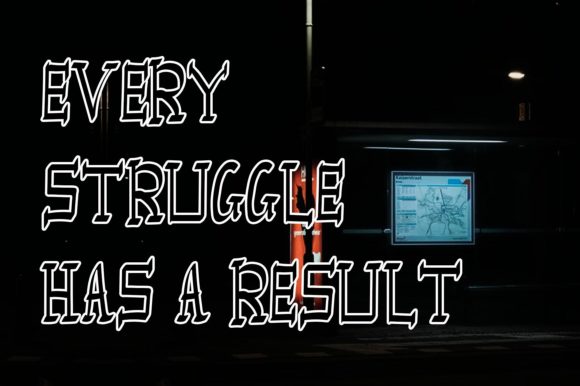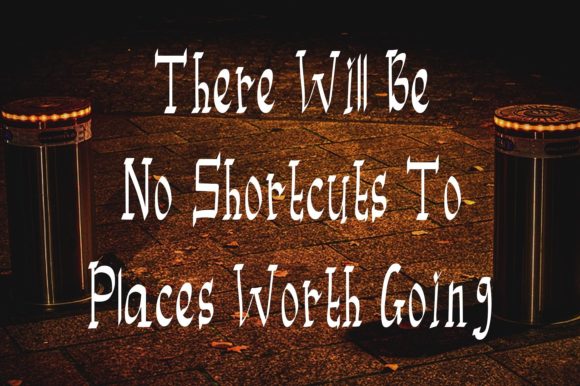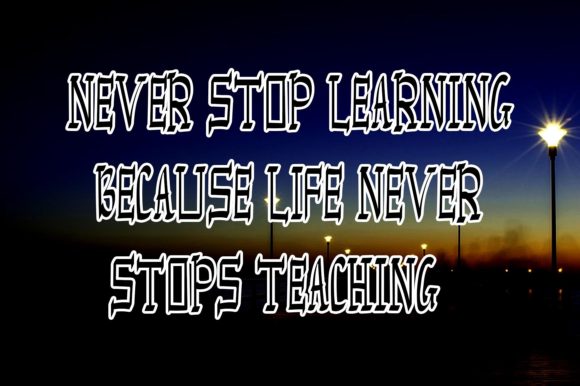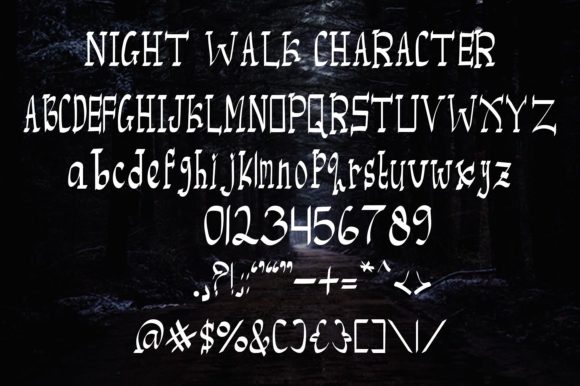
Introduction to Night Walk Font
You’re in the middle of a late-night creative session, pouring over designs for your latest project. Your computer screen glows, casting a warm light on your workspace as you search for the perfect font to bring your vision to life. And then, it happens – you stumble upon the Night Walk Font, a quirky and casual serif font that perfectly captures the essence of your creative idea.
This charming font is more than just a design resource; it’s a game-changer for designers looking to elevate their projects. With its high-quality design and transparent background, the Night Walk Font is perfect for logos, headings, and any other creative project that requires a unique touch. And the best part? It’s available for a free download, making it an invaluable asset for designers of all levels.
Key Features of Night Walk Font
- High-quality design resource ideal for creative projects requiring a unique aesthetic.
- Comprises a set of stylish and modern characters, perfect for adding a touch of sophistication to your design.
- Designed to be versatile, making it suitable for use in various creative projects, from print materials to digital applications.
Honest Review: Night Walk Font
As a designer, I’m always on the lookout for unique and high-quality design resources to elevate my creative projects. The Night Walk Font is one such resource that caught my attention. I downloaded it for free and was eager to see how it would perform.
- ✨ The font has a lovely, subtle texture that adds depth and character to any design.
- ✨ The transparent background makes it easy to overlay on different backgrounds and images.
- ✨ The font is highly customizable, with a range of styles and sizes to choose from.
- ⚠️ The font is not as versatile as some other fonts I’ve used, and may not be suitable for all types of projects.
- ⚠️ The texture can sometimes be overwhelming, and may require careful balancing to avoid visual clutter.
Overall, I’d say the Night Walk Font is a solid addition to any designer’s toolkit. While it may not be perfect for every project, it’s a great resource to have in your back pocket for those creative moments when you need something a little different.
How to Use Night Walk Font
Experiment with different font sizes, colors, and combinations to create unique designs. Use the Night Walk Font in conjunction with other design elements to create visually appealing compositions. Take advantage of its transparent background to create seamless designs.
The Night Walk Font is perfect for creative projects, such as typography-based artworks, posters, and social media graphics. It’s also suitable for presentations, reports, and documents that require a high-quality design resource. With its free download option, you can easily integrate it into your design workflow.